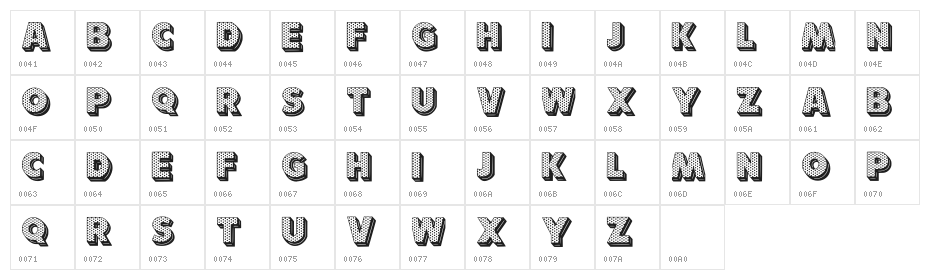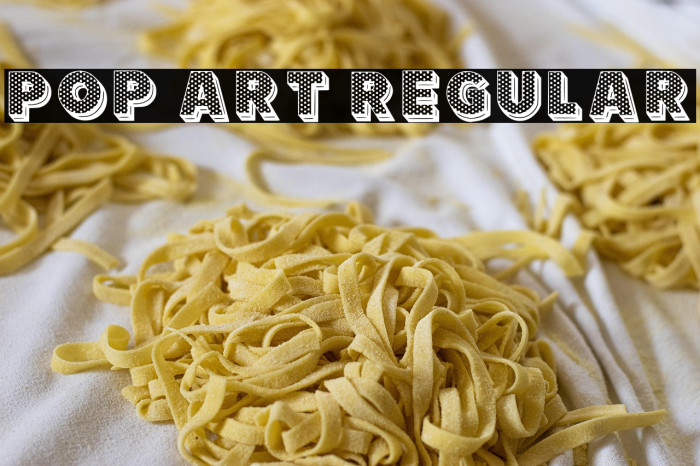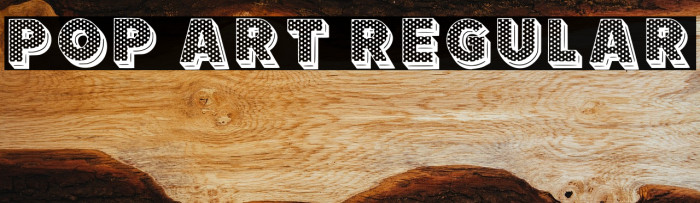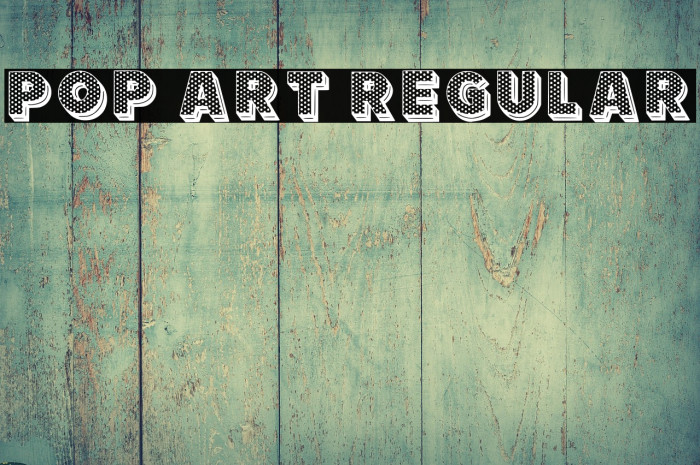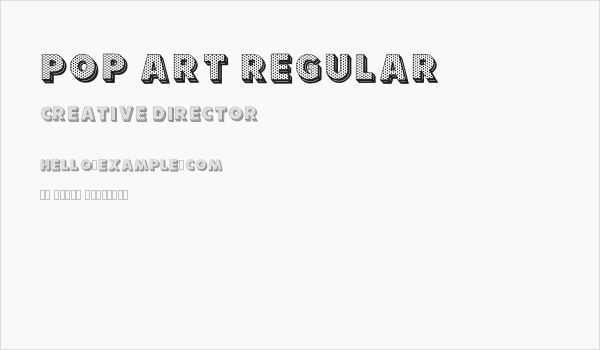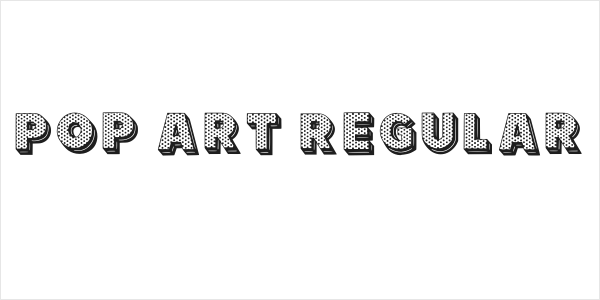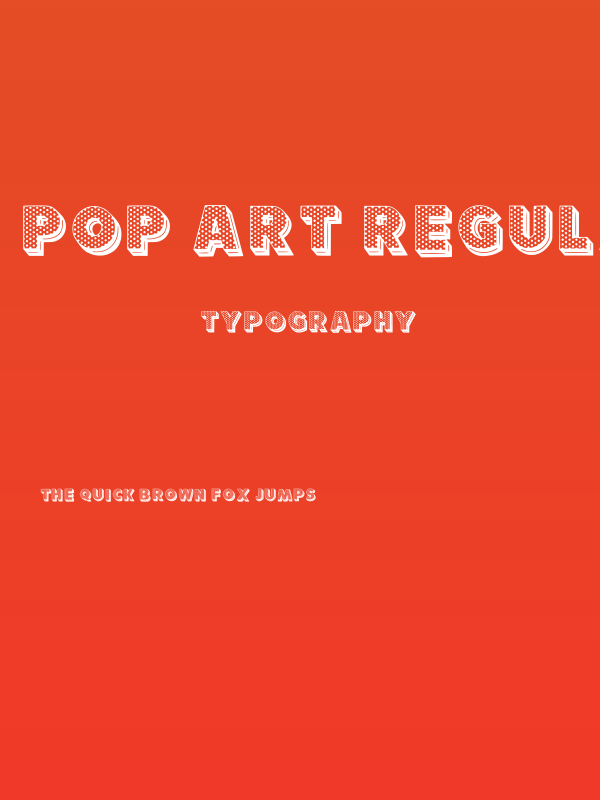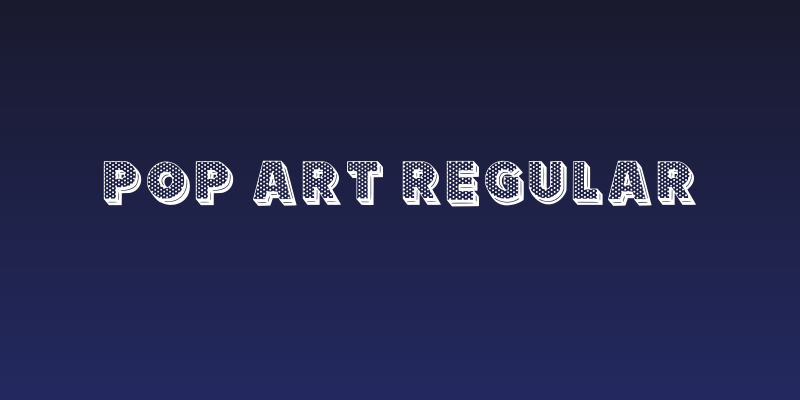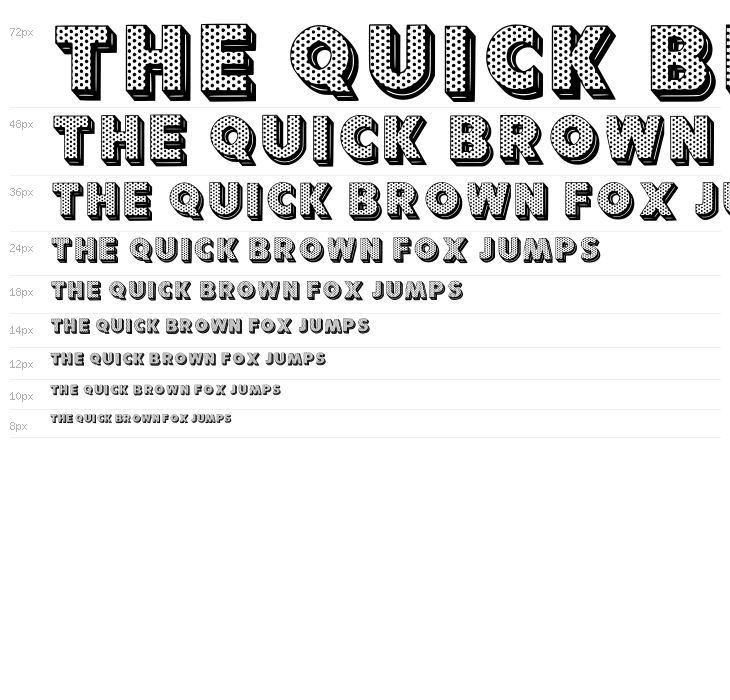
Pop Art Regular Font
Pop Art Regular Description
This font features a bold, playful design with a distinct pop art influence. Each character is filled with a pattern of dots, reminiscent of the iconic comic book style. The letters have a three-dimensional effect, with a shadow that adds depth and a sense of movement. The overall look is vibrant and eye-catching, making it perfect for designs that need to stand out. The uppercase letters are uniform in size, with a consistent width and height, creating a cohesive appearance. The font's unique style is both retro and modern, capturing the essence of pop art with a contemporary twist.
| Overall Style | Modern, Retro |
| Use Case | Headlines, Posters, Logos |
| Proposed Projects | Ideal for posters, comic book designs, retro-themed projects, and eye-catching headlines. |